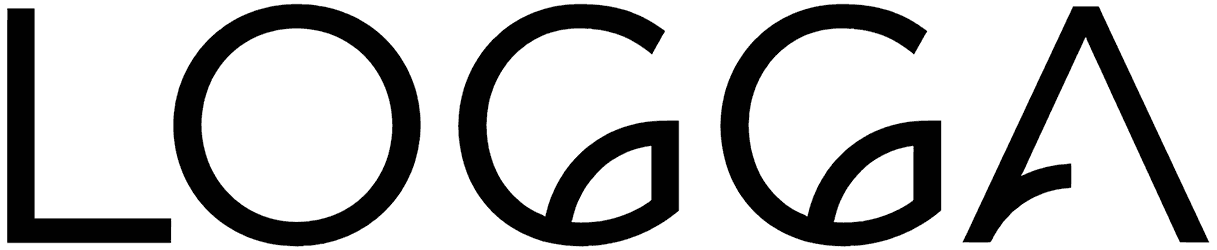
Logga Font
Meet Logga, a chic and modern item that can bring an elegant mood to your context. As a minimalist font, Logga possesses a unique and soft letter style that can be harmonized with varied formal or informal layouts. Even…
Designed byPepe Juntunen
Meet Logga, a chic and modern item that can bring an elegant mood to your context. As a minimalist font, Logga possesses a unique and soft letter style that can be harmonized with varied formal or informal layouts. Even without lowercase letters, this contemporary pickup will be a great illustration for lots of projects, such as branding, business cards, apparel, and so forth.
Logga v. 1.0 designed by Pepe Juntunen